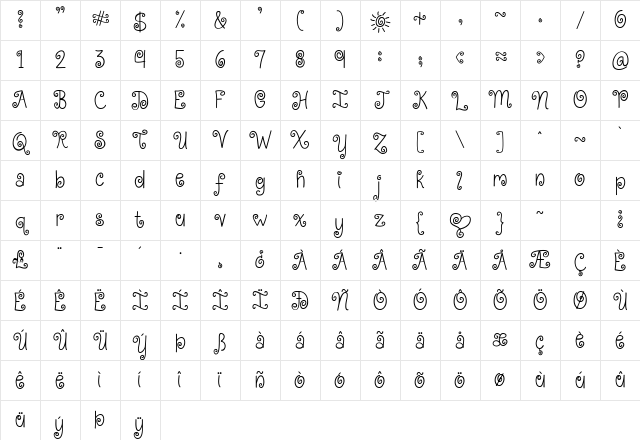
Complete KG Kiss Me Slowly Regular glyph index. Displaying only characters natively supported by KG Kiss Me Slowly Regular font.
KG Kiss Me Slowly is a composed and adaptable typeface that performs quietly and consistently across a wide range of design contexts.